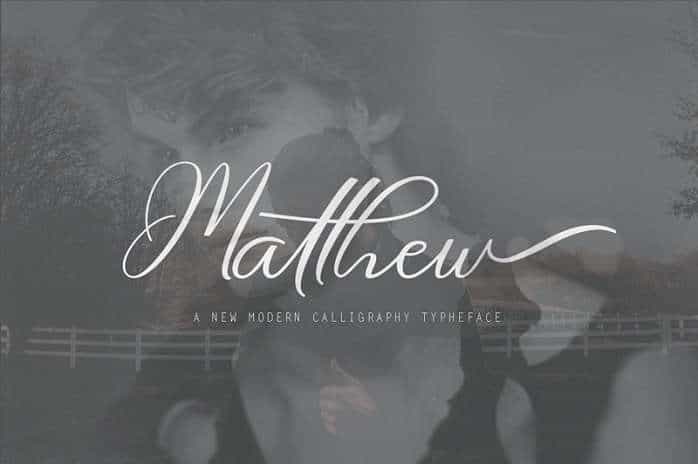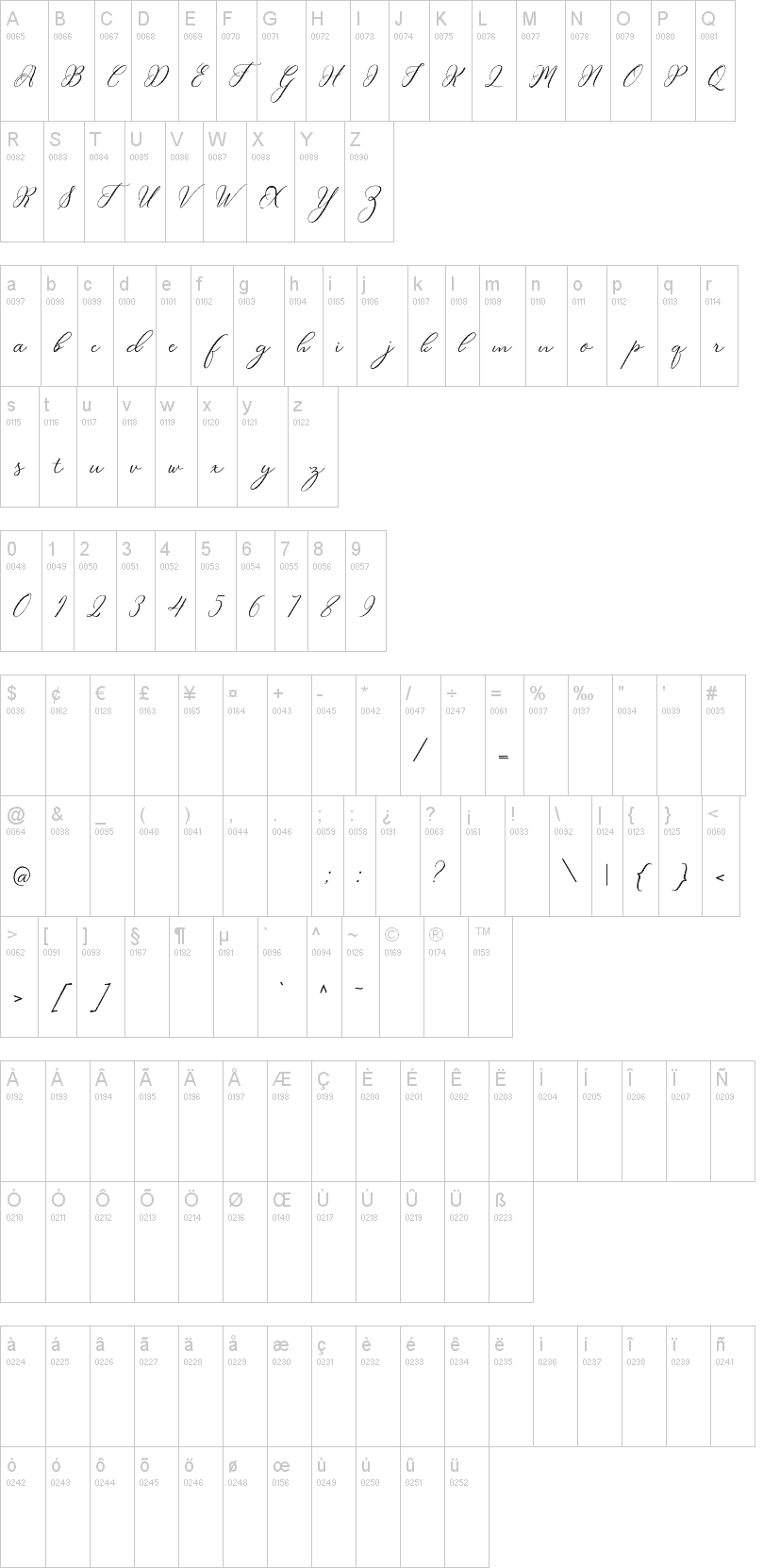
Matthew is a beautiful calligraphy font that is inspired by both contemporary and traditional cursive script. This is a good font especially for special event works and it also has an alternate for special typographic and branding purposes.